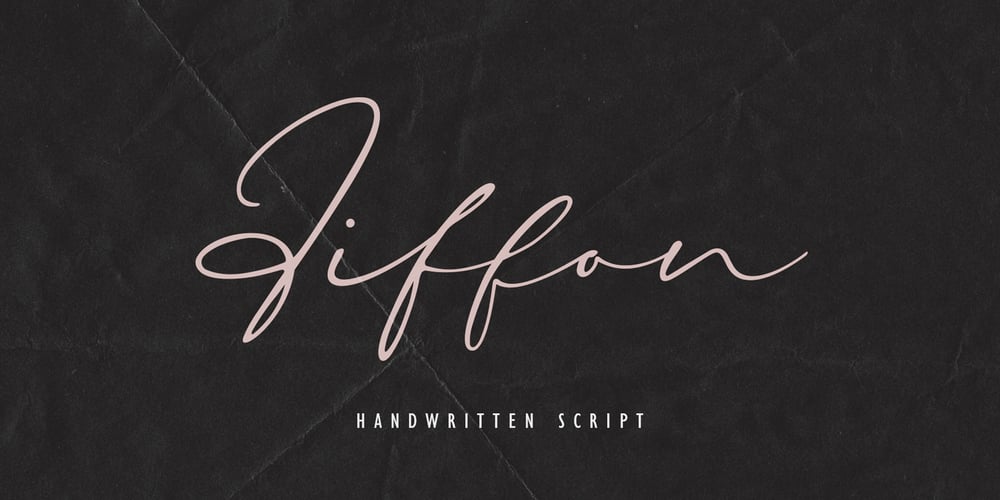
Aiffon
Aiffon font
Aiffon Font Family was designed by Awan Setiawan and published by Awanstudio. Aiffon contains 1 styles and family package options. Aiffon handwritten script allows you to create stunning and easy hand-lettering in an instant. Ideal for the logo, quotes, wedding, product label/packaging, fashion, letter, advertising, invitation, poster, merchandise, greeting cards, etc. This font came along with lots of ligatures options for more natural looks.